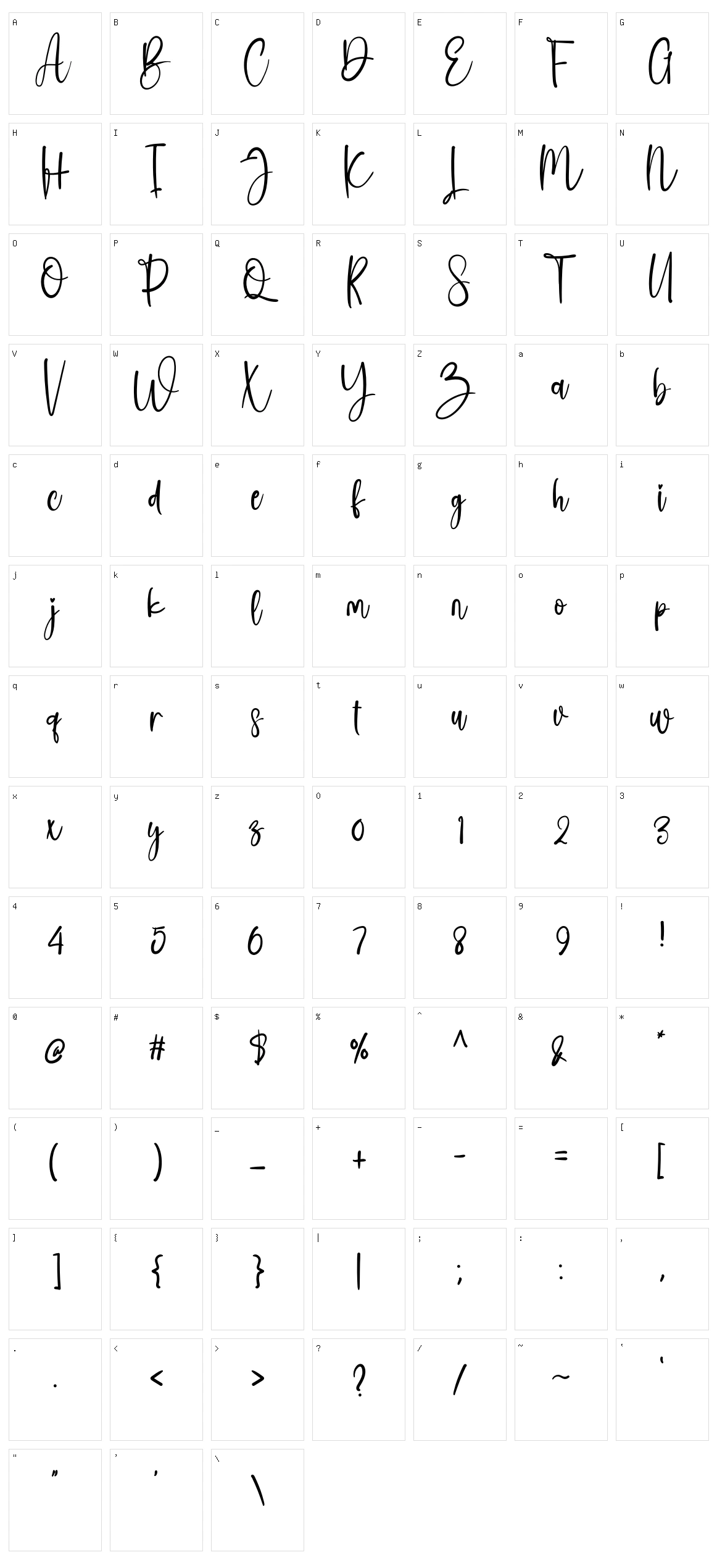
The free font Creative Writing is carefully designed by Id: #6888964, showcasing a thoughtful balance of creativity and usability and falls under the Script font style. When you download the ZIP file, it contains only 78.7 KB of font files, making it lightweight and quick to download. Please review the license details below to understand permitted usage and distribution rights. If license information is not available, we recommend using this font for personal projects only or contacting the author directly for commercial usage permissions.